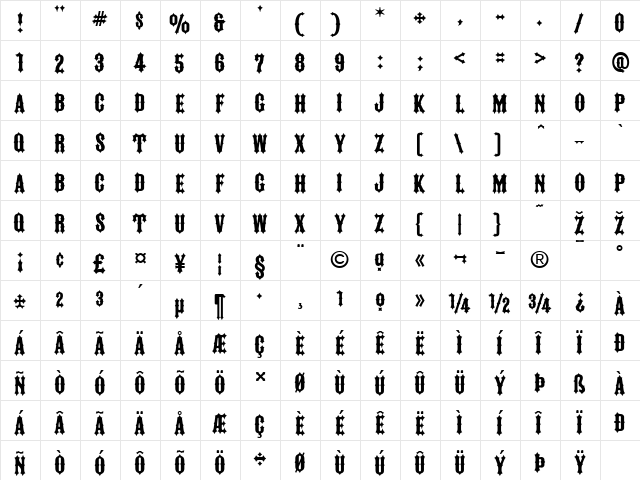
FTY IRONRIDER NCV Regular
Design Context for FTY IRONRIDER NCV Typeface
FTY IRONRIDER NCV is a composed and adaptable typeface that performs quietly and consistently across a wide range of design contexts.